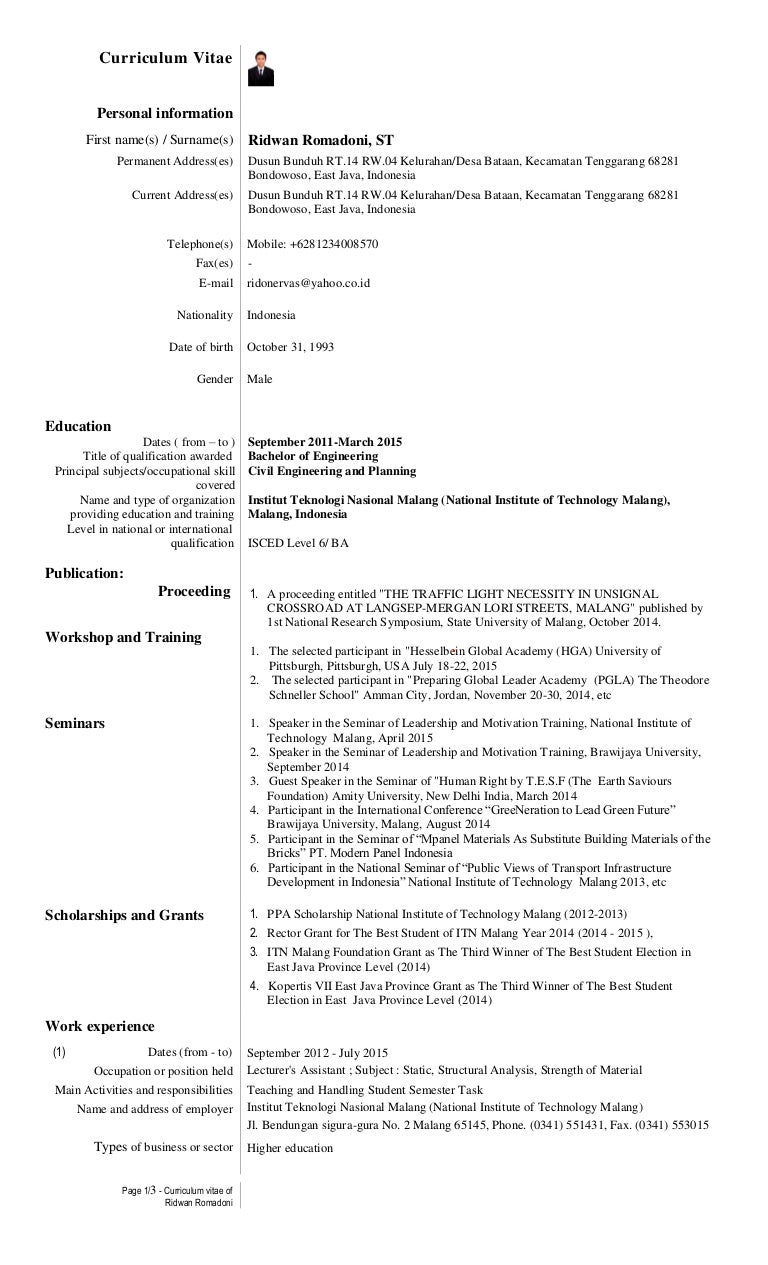
If you want to play it safe this is the 1 font to use. Basic bookprint fonts like arial verdana calibri and times new roman work well.
What S The Best Resume Font Size And Format
Best cv font type. The best resume font type to use. List of best fonts for resume. The arial font is commonly used for official letters. Resume font size italics and bolding. Youre applying for a job in a creative field like graphic design publishing or photography. The following is a list of the best resume fonts to use when applying for a job.
Try and keep your resume to one page leave the reader wanting to know more. Times new roman is widely considered the most classic and traditional font to use on a resume. Dating from the 15th or 16th century garamond is a classic serif font with over half a millenium of historyits among the best fonts to use for a resume since its recognizable and easy to read. The body of your resume including headers should generally be 10 to 12 points no matter what typeface youre using. Although cv font may seem like a trivial matter it can have a huge effect on your ability to land interviews and job offers. Resume formats are a bit more debatable than resume font or size.
Readability and professionalism are the most important factors when deciding the best font to use for your cv. When in doubt just keep it simple. You can use different fonts for the body and the headings but you dont want to use more than two. Breaking down the 10 best resume fonts. However if you are applying to a position in graphic design or advertising where resume layout and design might be part of your assessment employers might be open to alternative fonts. Now that weve narrowed it down to a certain font family well break down the top 10 best resume fonts and what job categories they might be ideal for.
This font has other things going for it though. Use this font if. Professional resume writer donna svei points out that typing in calibri at a 12 pt. In 2020s marketplace these are the 10 best resume fonts based on reliability perception and style. The size you choose will be largely determined by how the font size impacts your resume layout. Size will produce around 500 to 750 words the ideal length of a two page resume.
Another resume formatting choice to consider is the size of the typeface you choose.